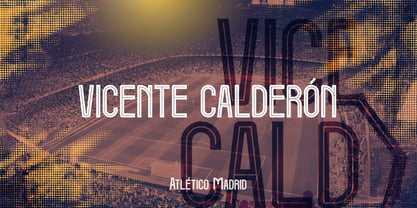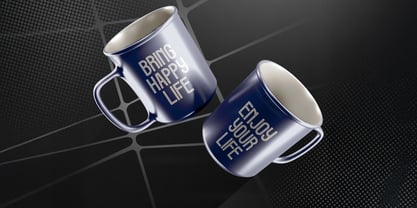
The Rusdy Ibra Font Family was designed by Virgiawan Listanto and published by Stringlabs Creative Studio. Rusdy Ibra contains 1 styles. More about this family
Rusdy Ibra is a sleek and modern sporty display font with a distinct futuristic feel. Its standout feature is a unique inline that runs through each letter, giving it a high-tech and dynamic look. Designed to convey speed and energy, this font is perfect for a wide range of high-impact projects. Use it for branding sports apparel, designing tech company logos, creating bold headlines for gaming events, or crafting eye-catching posters that truly stand out with a contemporary edge.
Rusdy Ibra